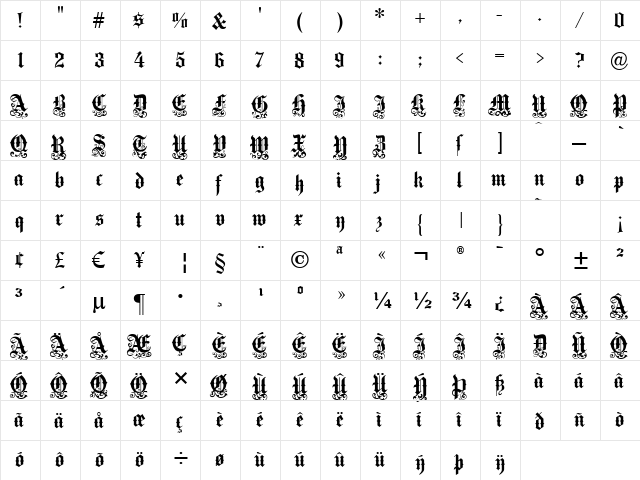
Victorian Text Regular
Design Context for Victorian Text Typeface
Victorian Text is a composed and adaptable typeface that performs quietly and consistently across a wide range of design contexts.
Pro Tip: Pair Victorian Text with a font of contrasting weight or personality to build a more expressive typographic hierarchy.